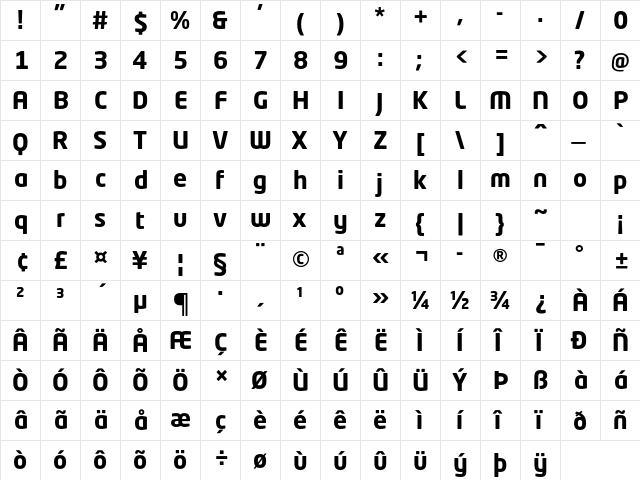
Neo Tech Std Bold
Design Context for Neo Tech Std Typeface
Neo Tech Std has a distinctly futuristic character, with geometric precision and clean angles that feel at home in technology, gaming, and sci-fi contexts. Its bold stroke weight gives it real presence on the page.
Pro Tip: Try Neo Tech Std with generous letter-spacing in UI labels and navigation — the geometric forms benefit from room to breathe.